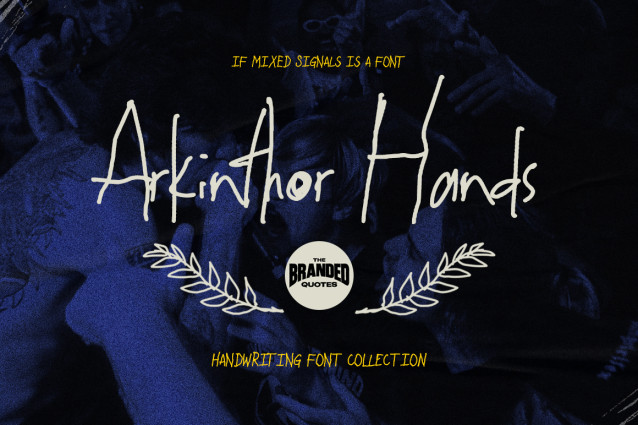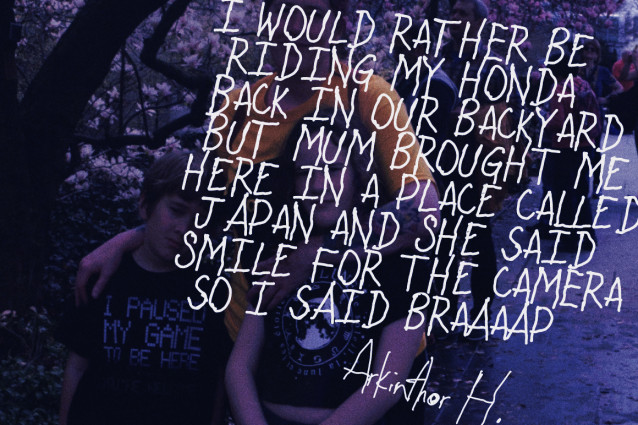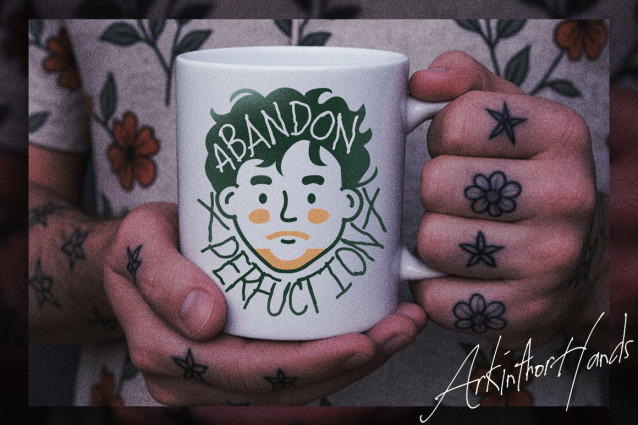
Arkinthor Hands Font
Arkinthor Hands! A digitally-made handwriting font with a very raw linework. Plus, the carefree style makes it nonsensical but subtly attractive.